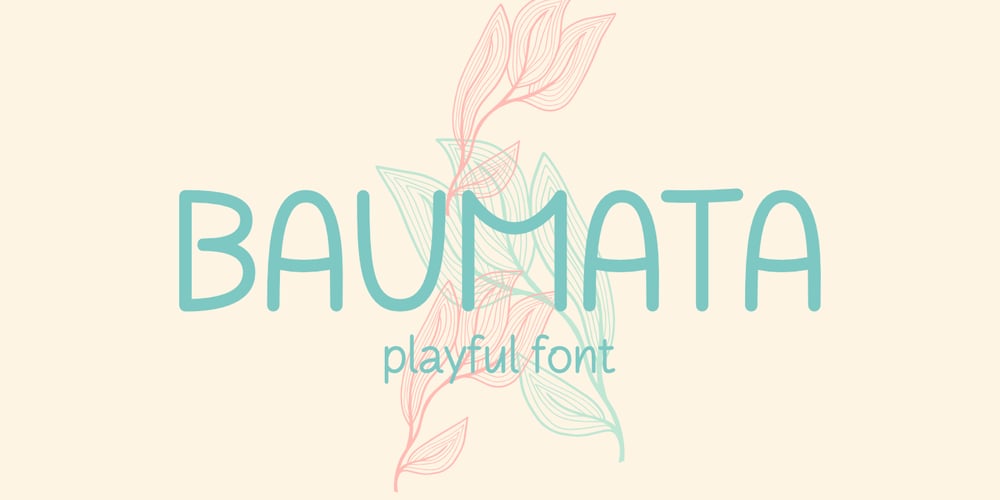
Baumata Font Family was designed by Muhammad Hastian and published by Hazztype. Baumata contains 1 styles and family package options. Baumata is a delightful and playful sans serif font that seamlessly merges modern aesthetics with a touch of whimsy. Designed to add a dash of personality to your projects, this typeface exudes friendliness and charm. With a focus on versatility, Baumata is crafted to captivate audiences in both Latin and Cyrillic scripts.